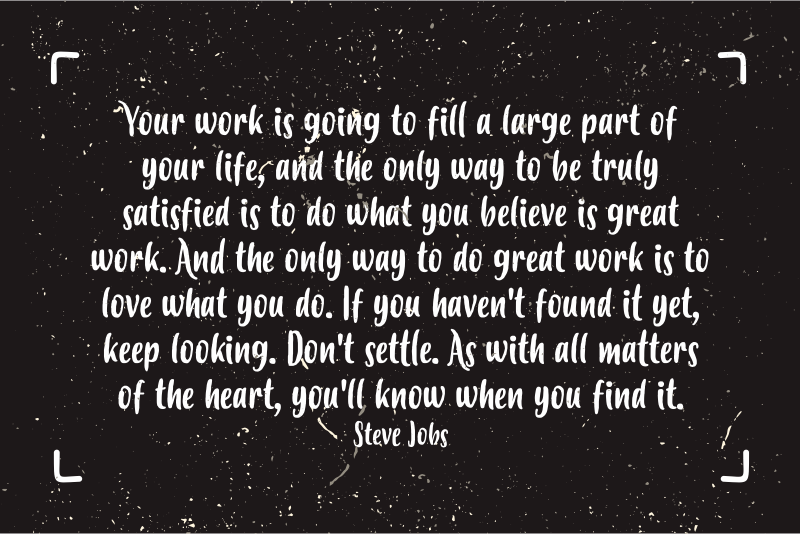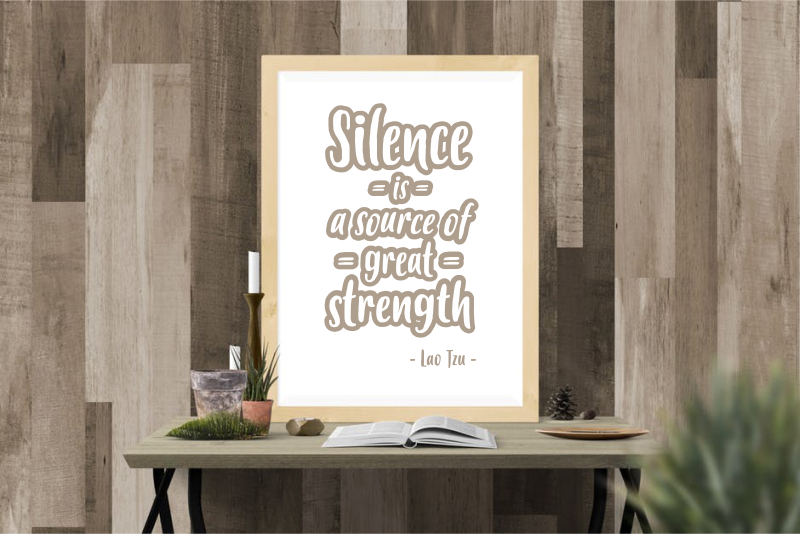
The Budidaya Font: A Handmade Gem for Designers and Crafters
In the world of typography, a good font can make all the difference in creating visually appealing designs. For designers and crafters looking for a unique and professional-looking font, the Budidaya font is a great option. Created by Situjuh Nazara, this handmade font is easy on the eyes and perfect for creating personalized designs that stand out.
What makes the Budidaya Font special?
The Budidaya font boasts a distinctive characteristic that sets it apart from other fonts – a unique long underline ligature. This feature allows designers to add a creative touch to their designs by activating an underscore (_) that stretches across the text. To activate this feature, simply type underscore (_) twice or more (up until five times) between words. For example, typing “Budi____daya” will result in a beautifully underlined text.
Key Features of the Budidaya Font
- Handmade with love: The Budidaya font is carefully crafted by Situjuh Nazara, giving it a personal touch that’s hard to find in digital fonts.
- Easy on the eyes: The font’s unique design makes it easy to read, even for extended periods of time.
- Professional-looking designs: The Budidaya font is perfect for creating designs that require a professional touch, such as logos, branding materials, and more.
- Unique long underline ligature: Add a creative touch to your designs with the font’s distinctive underscore feature.
Who can benefit from using the Budidaya Font?
The Budidaya font is an excellent choice for various designers and crafters, including:
- Graphic designers: Looking for a unique font to add to their design portfolio.
- Crafters: Creating handmade products, such as stationery, cards, and gift tags.
- Branding experts: Seeking a professional-looking font for client projects.
- DIY enthusiasts: Wanting to create personalized designs for their home or office.
How to use the Budidaya Font effectively
To get the most out of the Budidaya font, here are some tips:
- Experiment with different sizes: Find the perfect size for your design, from small captions to large headings.
- Play with the underscore feature: Try different combinations of underscores to create unique effects.
- Pair with other fonts: Combine the Budidaya font with other fonts to create visually appealing contrast.
The Budidaya font is a treasure trove of creative possibilities for designers and crafters. With its unique long underline ligature and handmade charm, this font is sure to elevate your designs to the next level. Whether you’re a seasoned designer or a DIY enthusiast, the Budidaya font is definitely worth exploring. So why not give it a try and see the difference it can make in your designs?
Example: Budi____daya